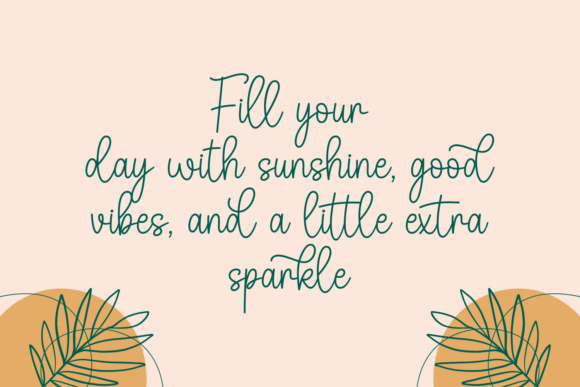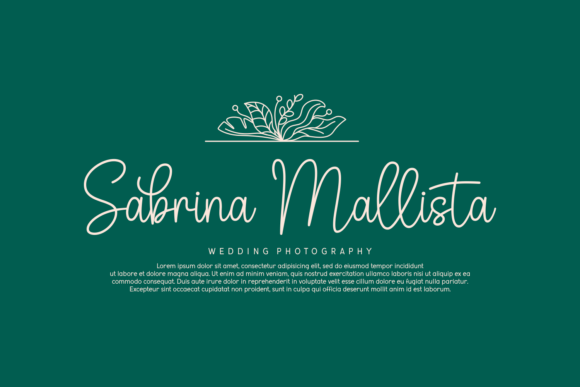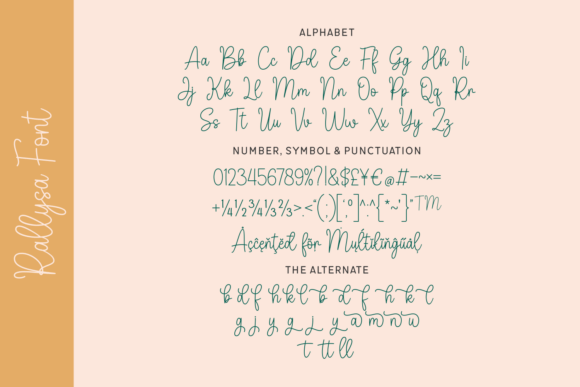
Introduction to Rallysa Font
Rallysa is a fun and friendly monoline script font with a unique swash that dances across the baseline.
Ideal for creative projects like baby products, social media posts, or event invites that need a soft, personal touch .
Key Features of Rallysa Font
Why Choose Rallysa Font?
Rallysa Font offers exceptional quality and versatility, making it a valuable addition to your design toolkit. Whether you’re creating for personal projects or commercial use, Rallysa Font delivers professional results.